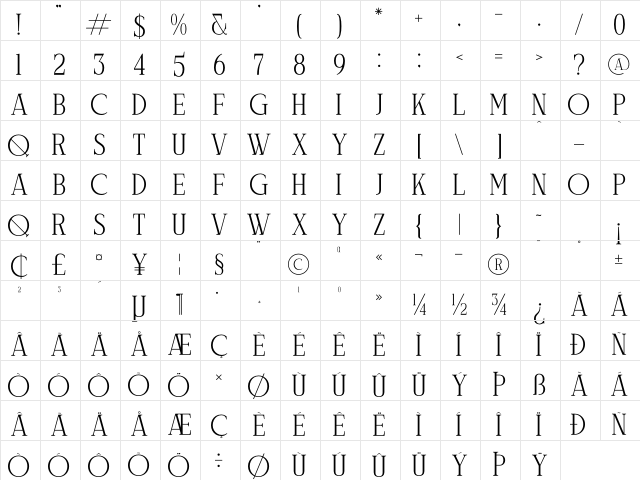
Celliqath Regular Free Font
Celliqath Regular
Foundry: Storytype Studio
Designer: Heru Utama Putra
Design Context for Celliqath
Celliqath is a composed and adaptable typeface that performs quietly and consistently across a wide range of design contexts.